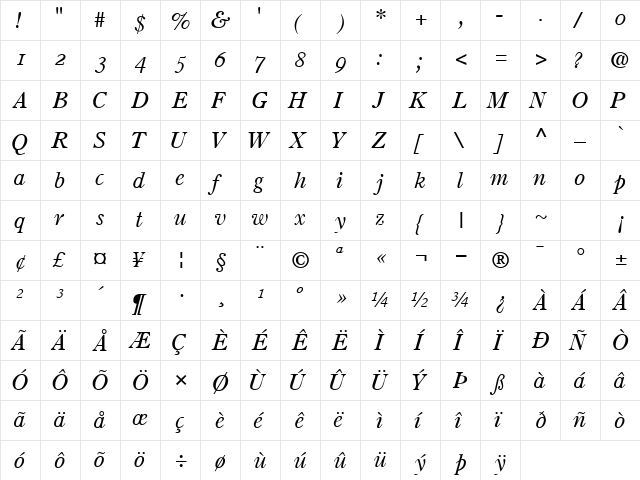
PartitionOSSSK Italic
Design Context for PartitionOSSSK Typeface
PartitionOSSSK offers clean, dependable letterforms without strong stylistic allegiance, making it a practical choice for designers who need flexibility. The slanted form adds forward momentum and visual energy.